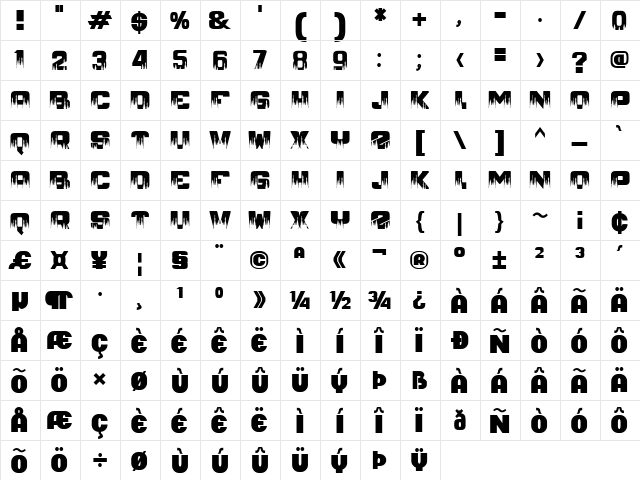
PINE JUNGLE NIGHT Regular Font Preview
PINE JUNGLE NIGHT Regular
Design Context for PINE JUNGLE NIGHT Typeface
PINE JUNGLE NIGHT is a composed and adaptable typeface that performs quietly and consistently across a wide range of design contexts.
Pro Tip: Use PINE JUNGLE NIGHT in both headline and body roles to test its range before committing to a single application.